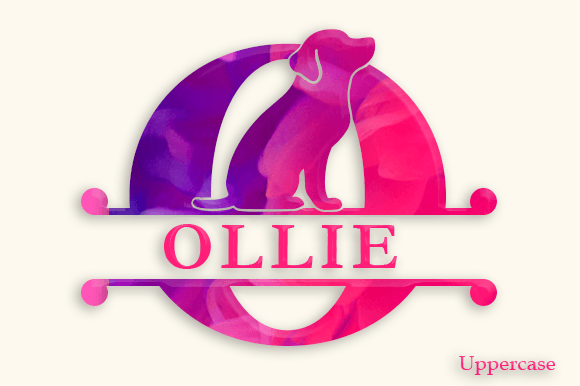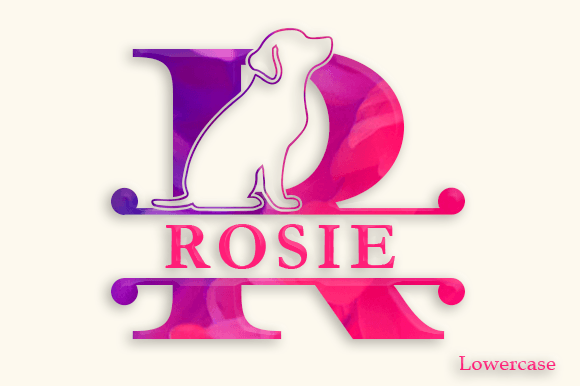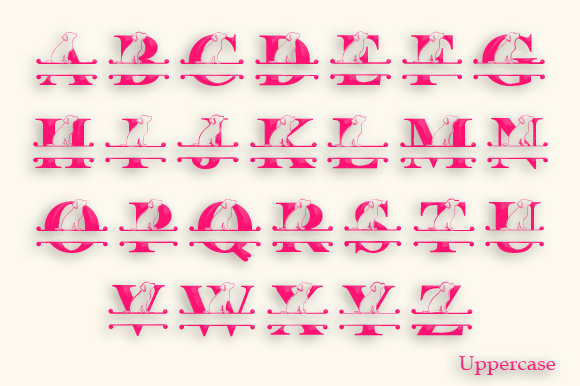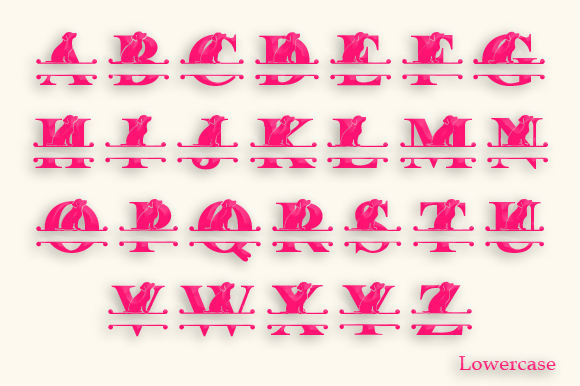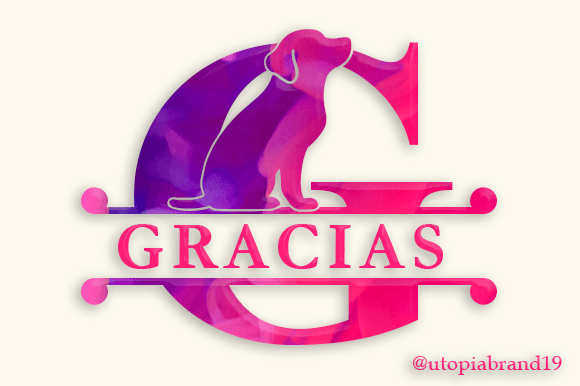
Introduction to Archie Monogram Font Font
Fonts play a crucial role in design, and the Archie Monogram Font font is a typeface that brings both character and versatility to any project. Whether you’re working on a branding project, a website, or a print design, the Archie Monogram Font font offers a unique style that can elevate your work.
Archie Monogram is a cute decorative font, featuring lovely puppies.
Fall in love with its authentic feel and use it to create gorgeous wedding invitations, beautiful stationary art, eye-catching social media posts, and cute greeting cards .
Key Features of Archie Monogram Font Font
Why Choose Archie Monogram Font Font?
The Archie Monogram Font font is more than just a typeface – it’s a design tool that helps you communicate your message with style and clarity. Its unique character set and versatile design make it suitable for a wide range of applications, from elegant invitations to bold headlines.
With its carefully crafted letterforms and balanced proportions, the Archie Monogram Font font ensures readability and visual appeal across all mediums.
What makes Archie Monogram Font font special?
The Archie Monogram Font font stands out with its unique design, exceptional readability, and versatility across various design applications.